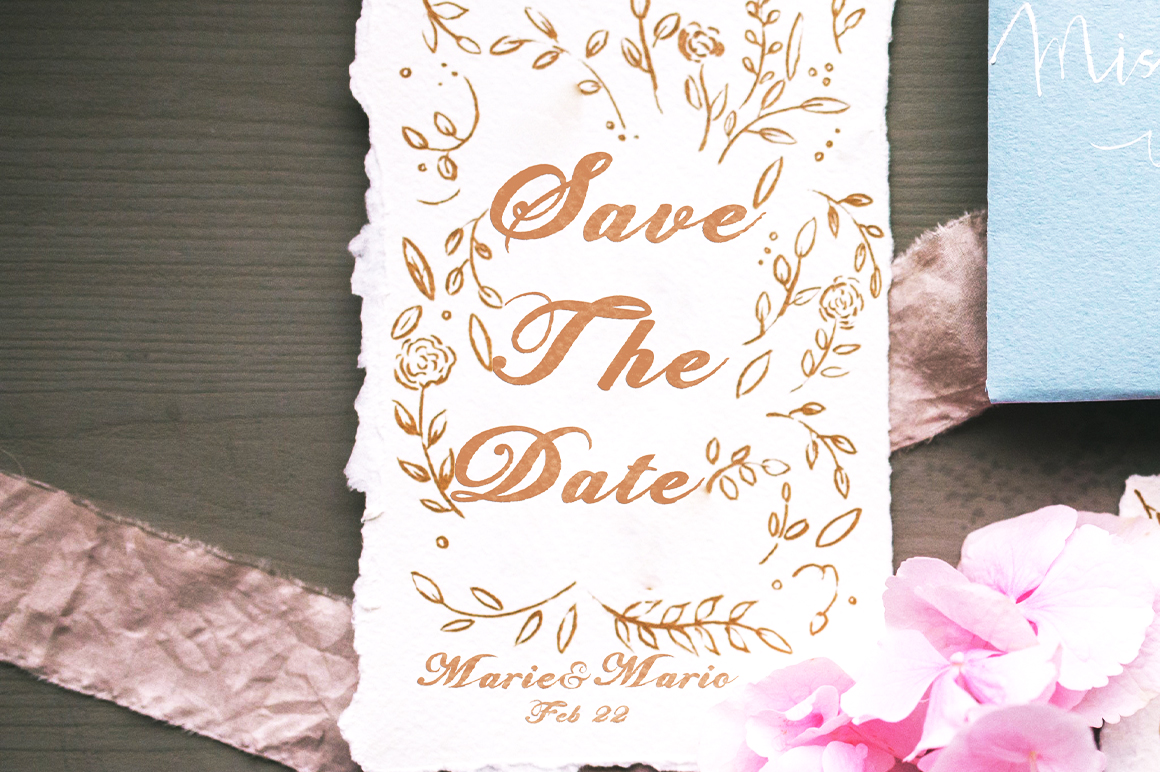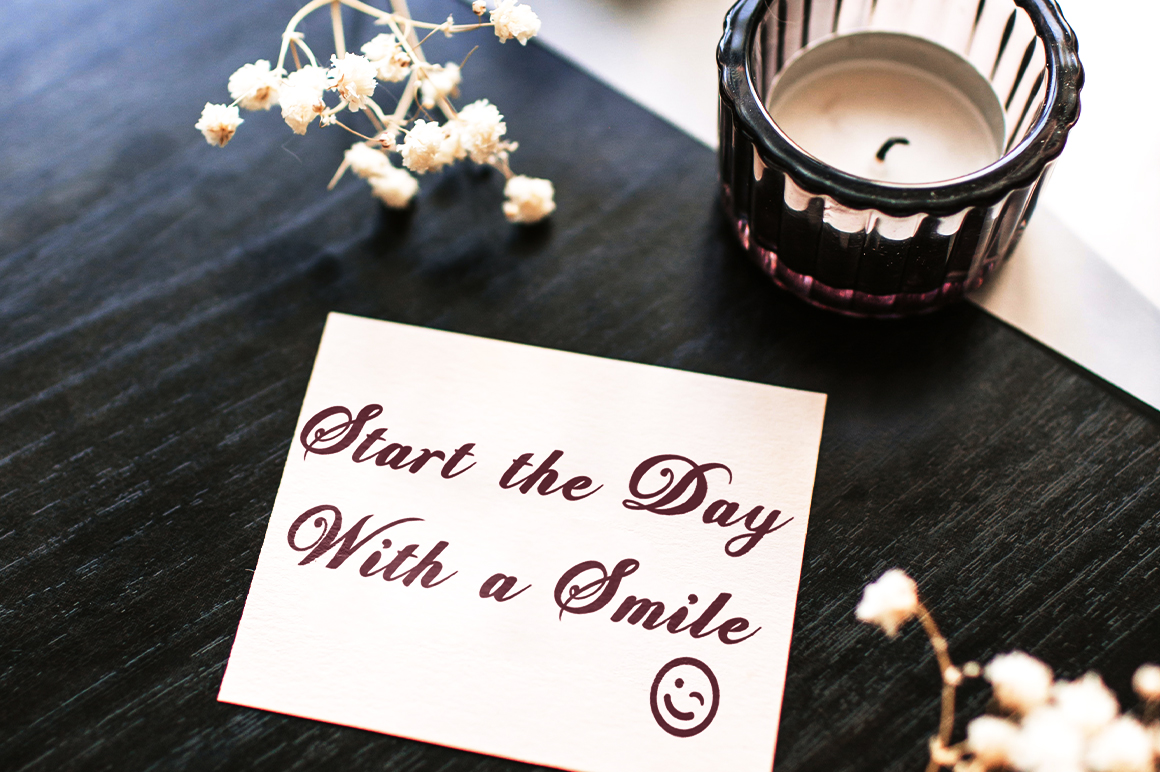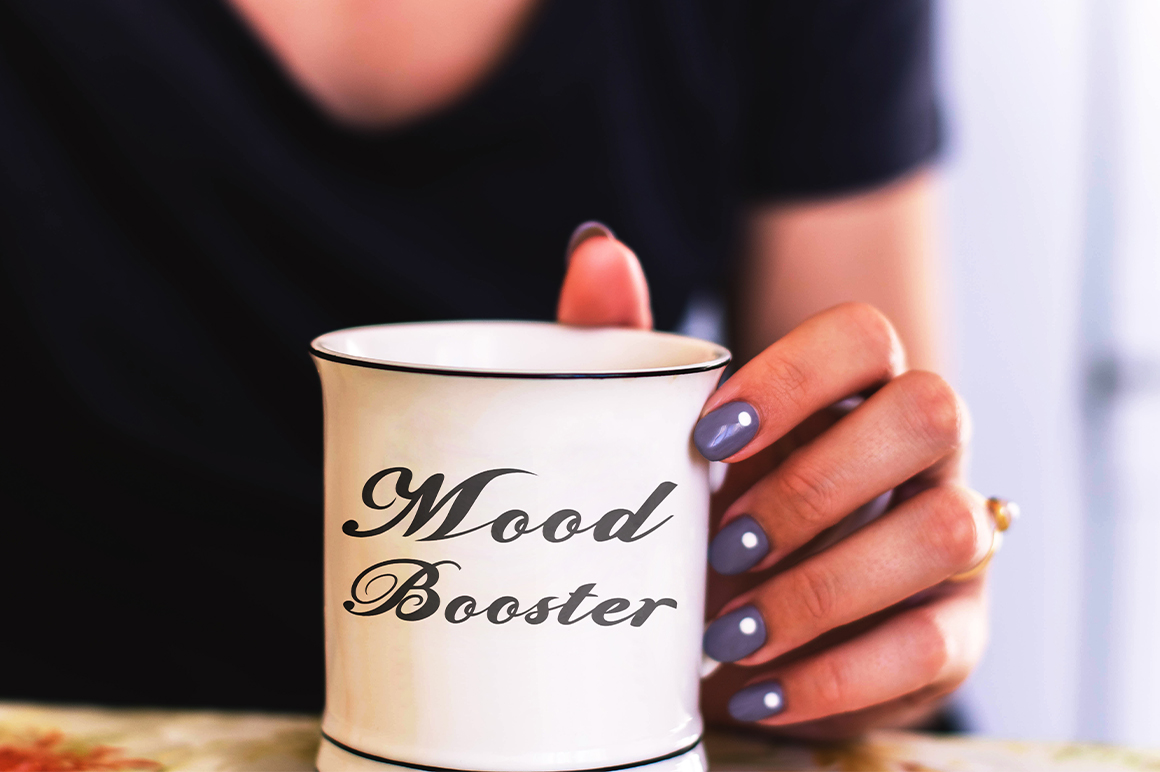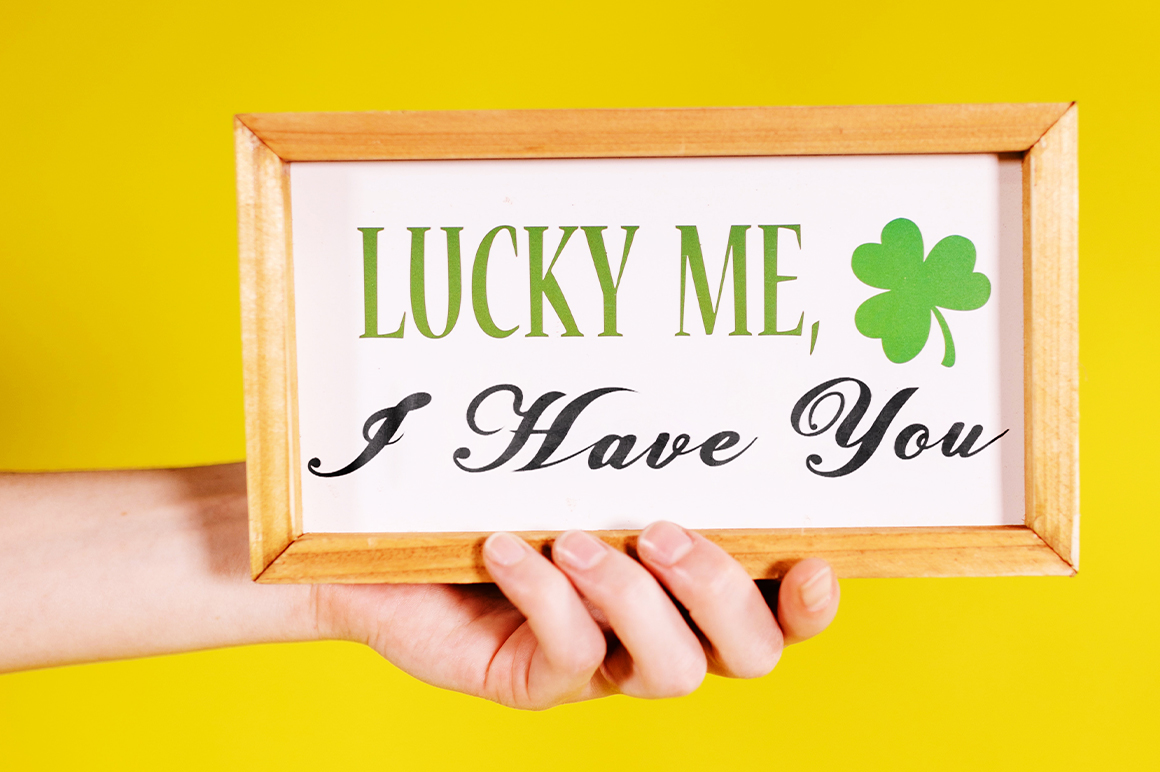
Paris Van Java Font
Paris Van Java Script Font
It’s a smooth handwritten font, elegant and flowing. It has a beautiful and balanced character and as a result, fits into a wide set of designs. Add it to your most creative ideas and watch how they come to life!